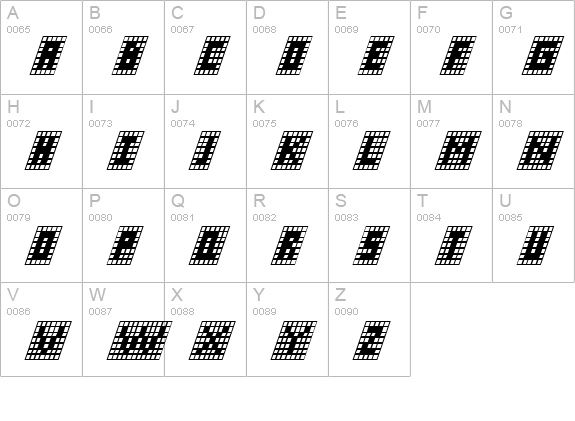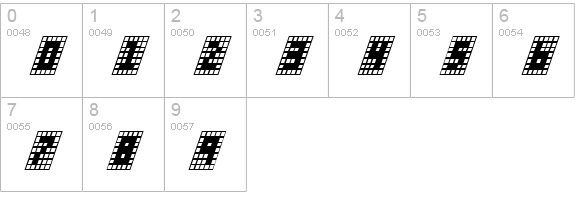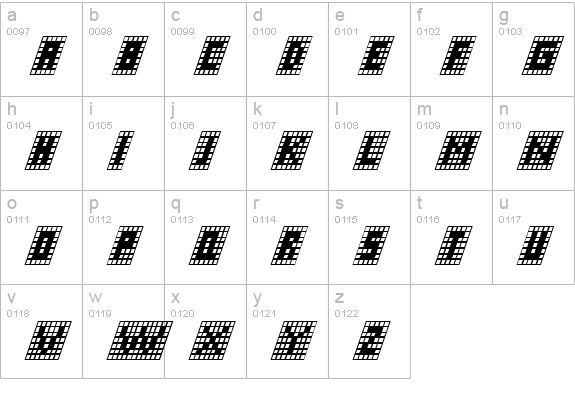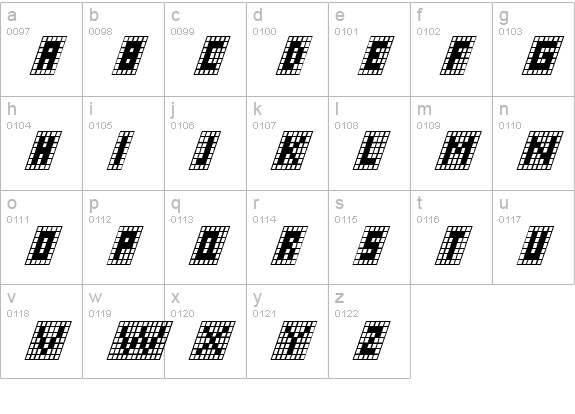
X-Grid Italic Font Details
X-Grid Italic is a distinctive, italic variant in the X typeface family \xE2\x80\x94 well suited to design and typography projects.
X-Grid Italic font is a modern and stylish typeface that exudes sophistication and elegance. Its sleek lines and unique design make it perfect for adding a touch of sophistication to any project. With its italic style, X-Grid brings a sense of movement and fluidity to your text, making it stand out from the crowd. The best part is that X-Grid Italic font is completely free to download at FontsMarket.com! Whether you are a designer looking to elevate your typography game or a business owner in need of a fresh look for your branding, X-Grid Italic font is the perfect choice. Download it today and give your projects a touch of class and style.